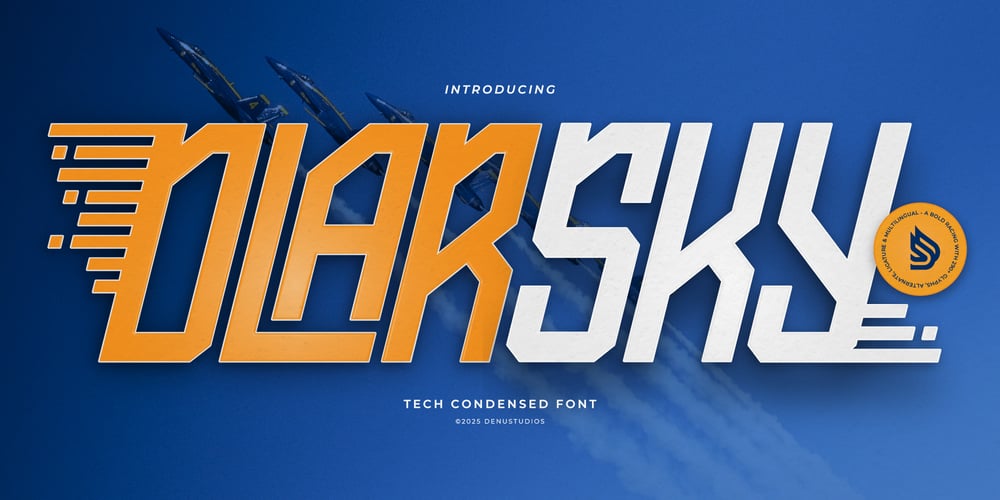
Dlar Sky
Dlar Sky font
Dlar Sky Font Family was designed by Dede Nugraha and published by Denustudio. Dlar Sky contains 2 styles and family package options. Dlar Sky | Tech Condensed Font, from Denustudios, suitable for any projects such as: logos, branding projects, homeware designs, product packaging, mugs, quotes, posters, shopping bags, t-shirts, book covers, name card, invitation cards, greeting cards, label, photography, watermark, special events, and all your other lovely projects that need Tech Condensed Font a taste.===========================================================================What’s Included : Regular and Italic Web Font Standard glyphs Alternate and Ligature Works on PC & Mac Simple installations Accessible in the Adobe Illustrator, Adobe Photoshop, Adobe InDesign, even work on Microsoft Word and Other Software. PUA Encoded Characters – Fully accessible without additional design software. Fonts include multilingual support Hope you enjoy with our font!